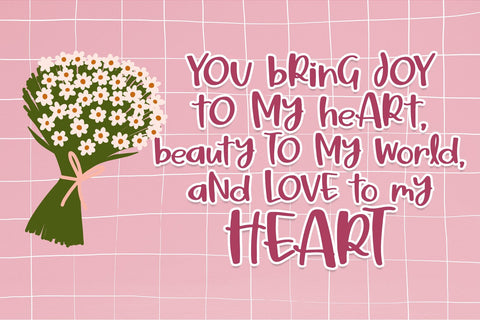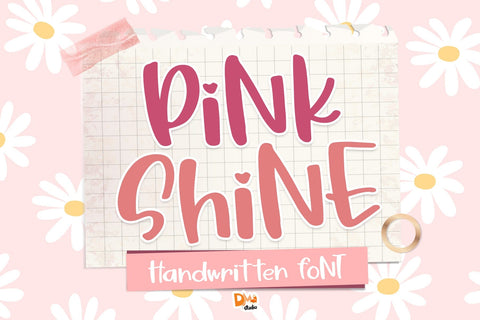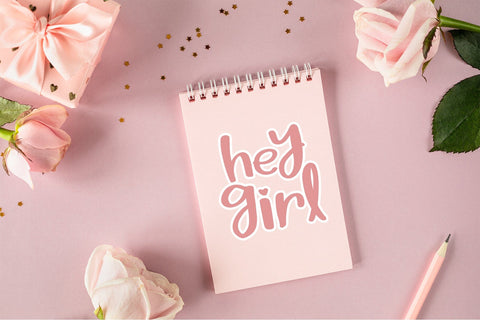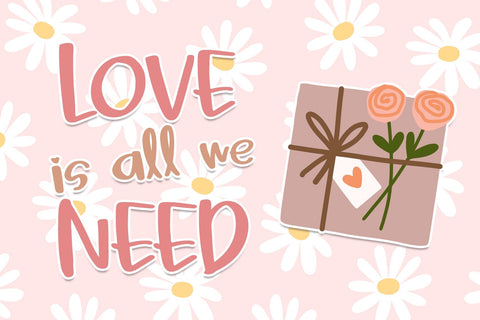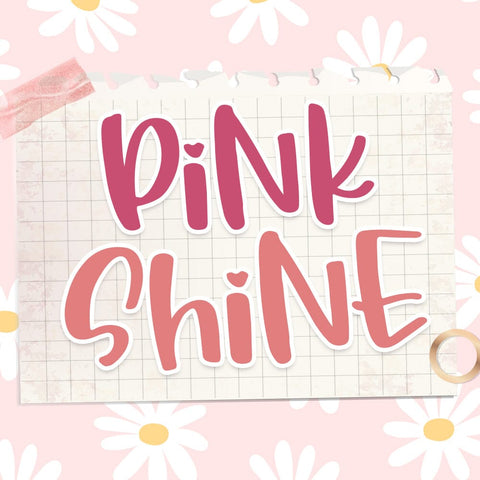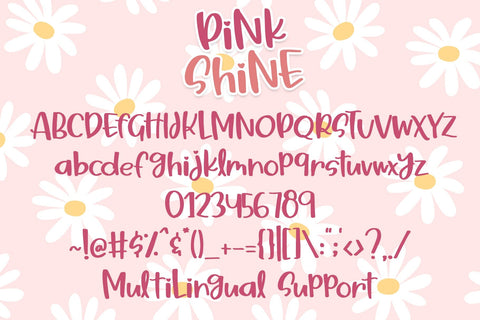
Pink Shine Font
Welcome to the world of Pink Shine, a delightful and free Personal Use font crafted to bring a touch of elegance to your personal projects. Whether you're working on invitations, cards, or creative designs, Pink Shine adds a charming and playful aesthetic.
Pink Shine Font is a stylish and elegant typeface designed to add a touch of glamour and sophistication to your creative projects. Its delicate strokes and graceful curves make it perfect for a wide range of applications, from wedding invitations to fashion branding.
- Chic and Elegant Design: The Pink Shine Font features a chic and refined aesthetic, making it ideal for projects that require a touch of sophistication and femininity.
- Versatile Usage: Suitable for a variety of design projects including wedding stationery, logos, branding, social media graphics, and more.
- Wedding Invitations: Create elegant and romantic wedding invitations with a touch of Pink Shine's graceful typography.
- Branding: Elevate your brand with a font that exudes sophistication, perfect for fashion, beauty, or luxury brands.
- Social Media Graphics: Use Pink Shine to add a stylish and feminine touch to your social media posts, quotes, and promotional materials.
- Logo Design: Craft unique and memorable logos that reflect a sense of style and luxury.
Let Pink Shine Font add a touch of elegance and glamour to your designs. Elevate your projects with this stylish and versatile typeface that radiates sophistication and charm.